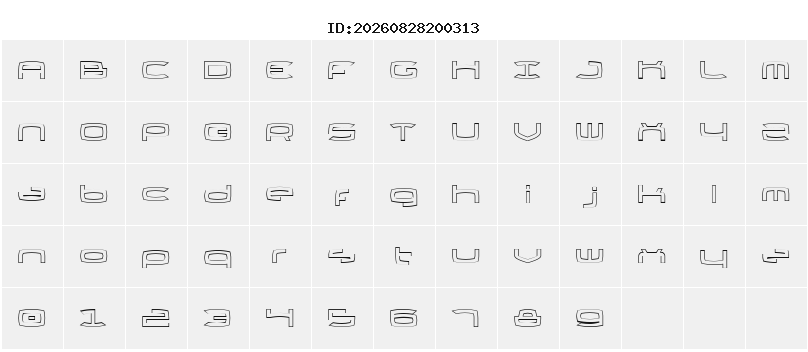
• Font Name: Thundergod II Outline
• Font Style: Outline
• Full Font Name: Thundergod II Outline
About Thundergod II Outline.ttf
Thundergod II Outline.ttf is a modern, elegant sans-serif font designed for ultimate readability and visual harmony. Perfect for branding, headlines, web design, and print materials.